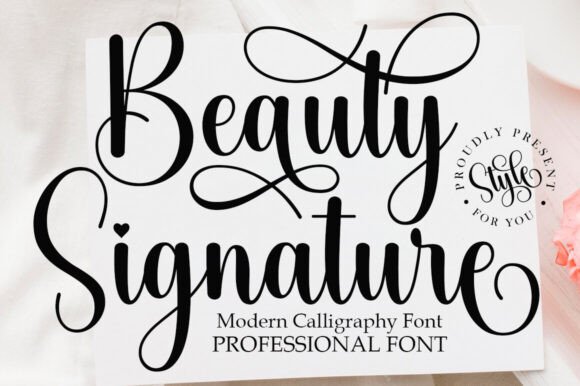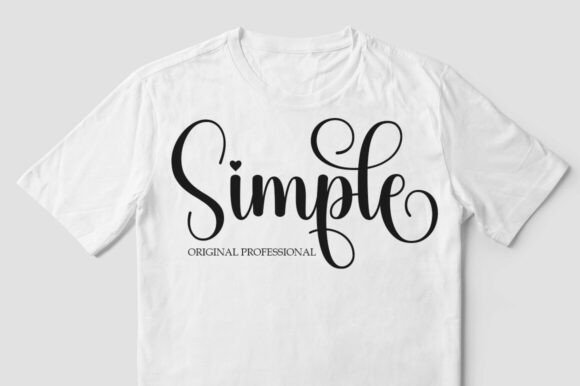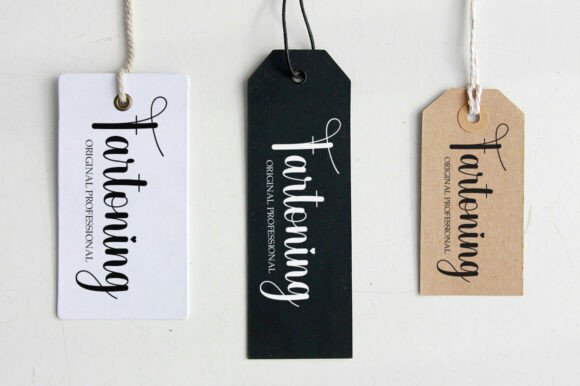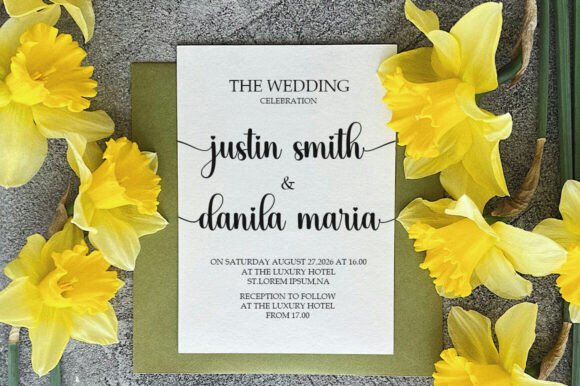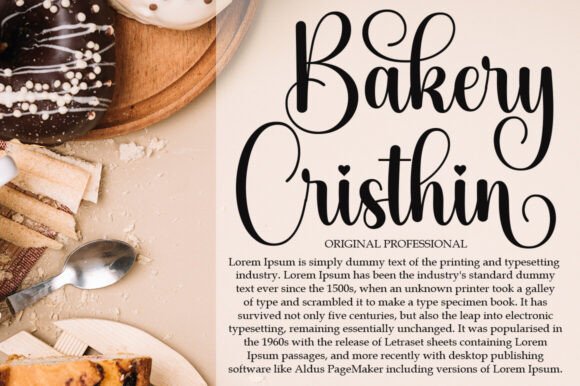
Beauty Signature Font
Beauty Signature is a beautiful handwritten font with a natural and flowing style. This font is perfect for wall art, wedding invitations, social media post logos, advertisements, product packaging, product design, labels, photography, watermarks, invitations, stationery, and any project that requires a handwritten style.